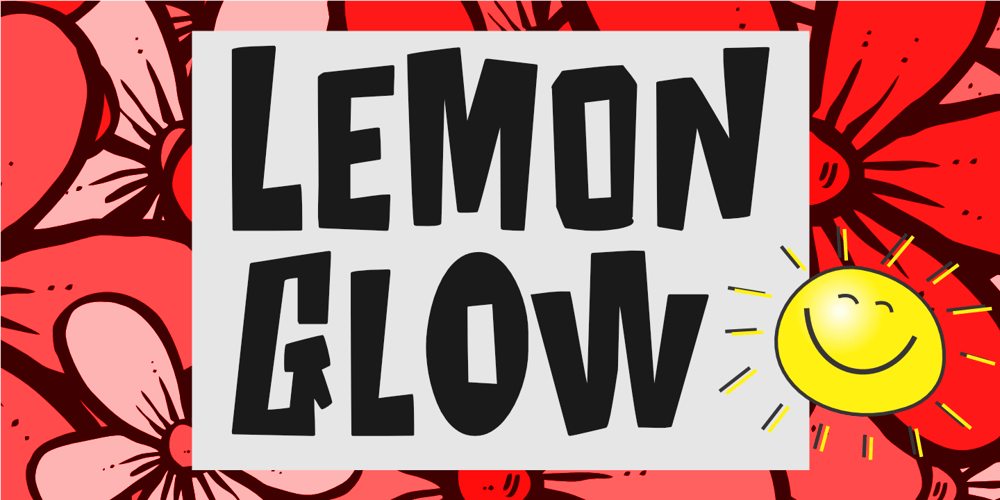
Lemon Glow Font Family was designed by Nurul Hidayani and published by Olivetype. Lemon Glow contains 1 styles and family package options. With Lemon Glow, you’ll bring the joy back to your design projects with a font that’s suitable for anything from creative pieces and children’s products to gaming brands and fresh business logos. It’s versatile, full of joy, and easy to use!Lemon Glow font includes : Standard Latin Uppercase and Lowercase Numbers, symbols, and punctuations Multilingual Support. PUA Encoded and fully accessible without additional design software Simple Installations Works on PC & Mac Thank You.